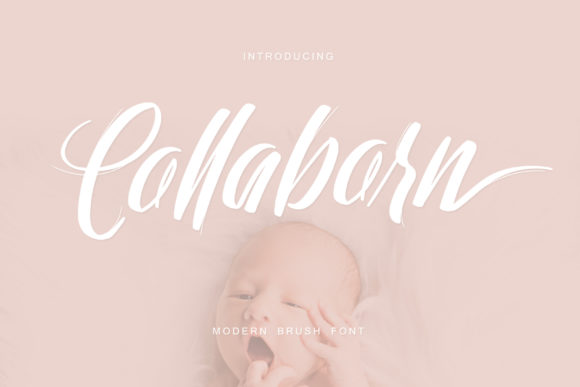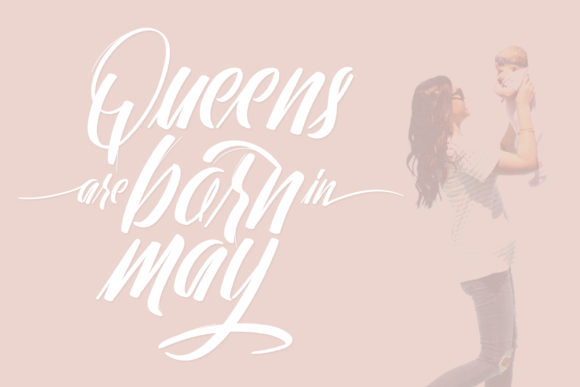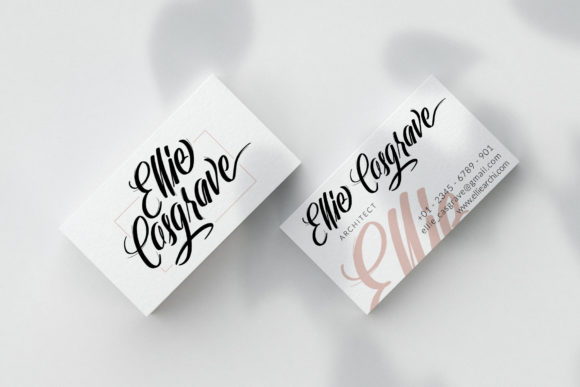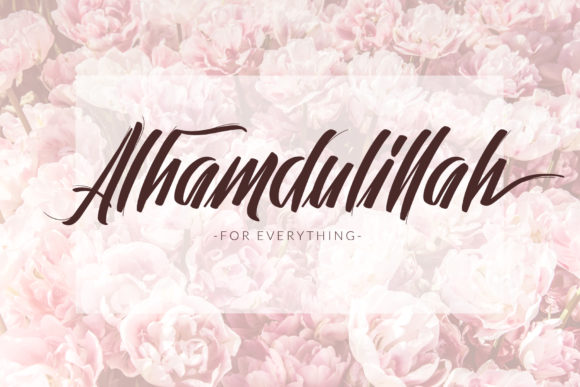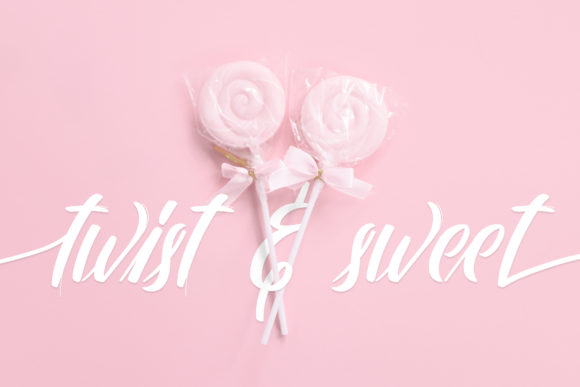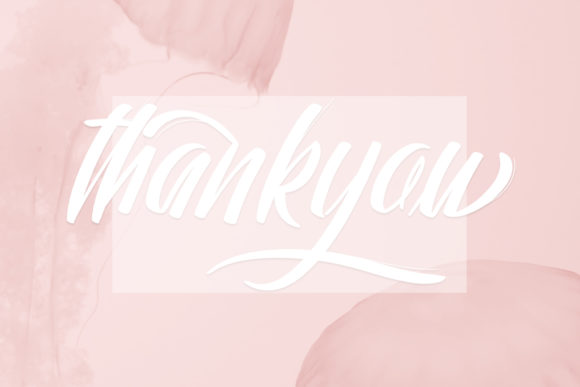
Collaborn Script Font
About Collaborn Script Font
Collaborn is an amazing script font with a beautiful feel. It will turn any design project into a true stand out!